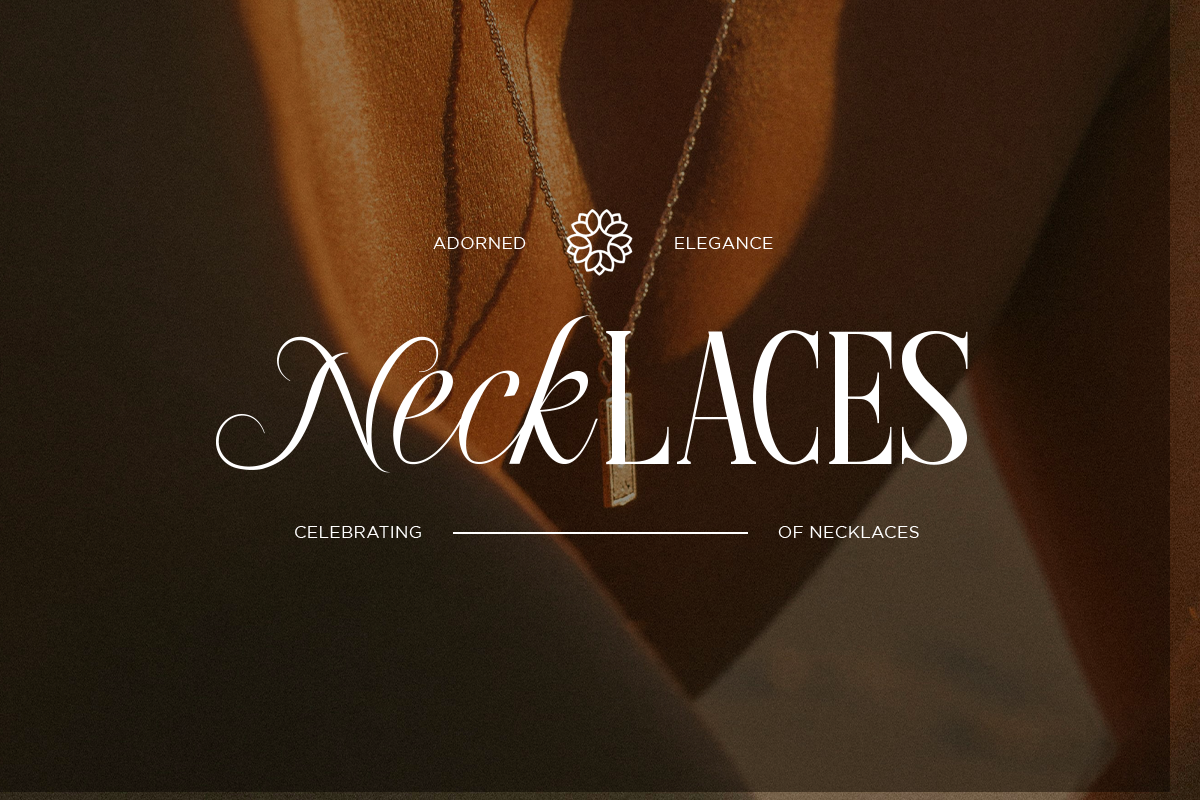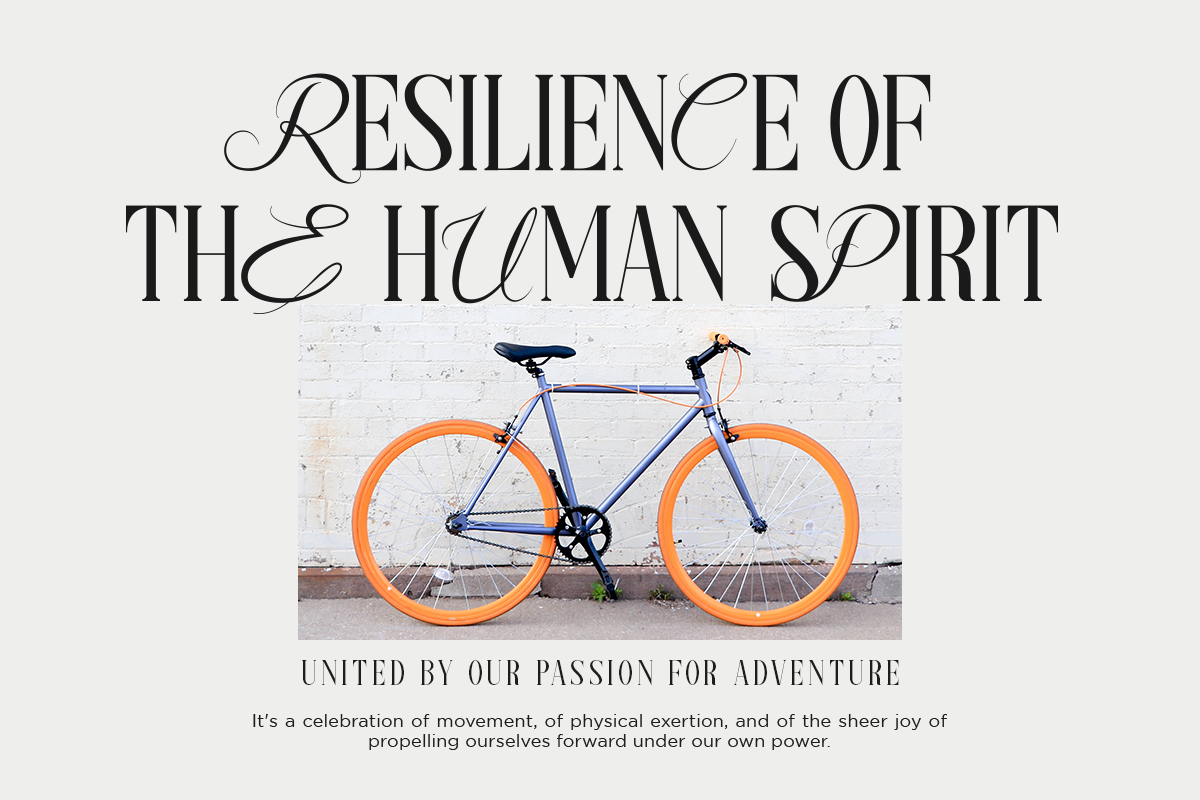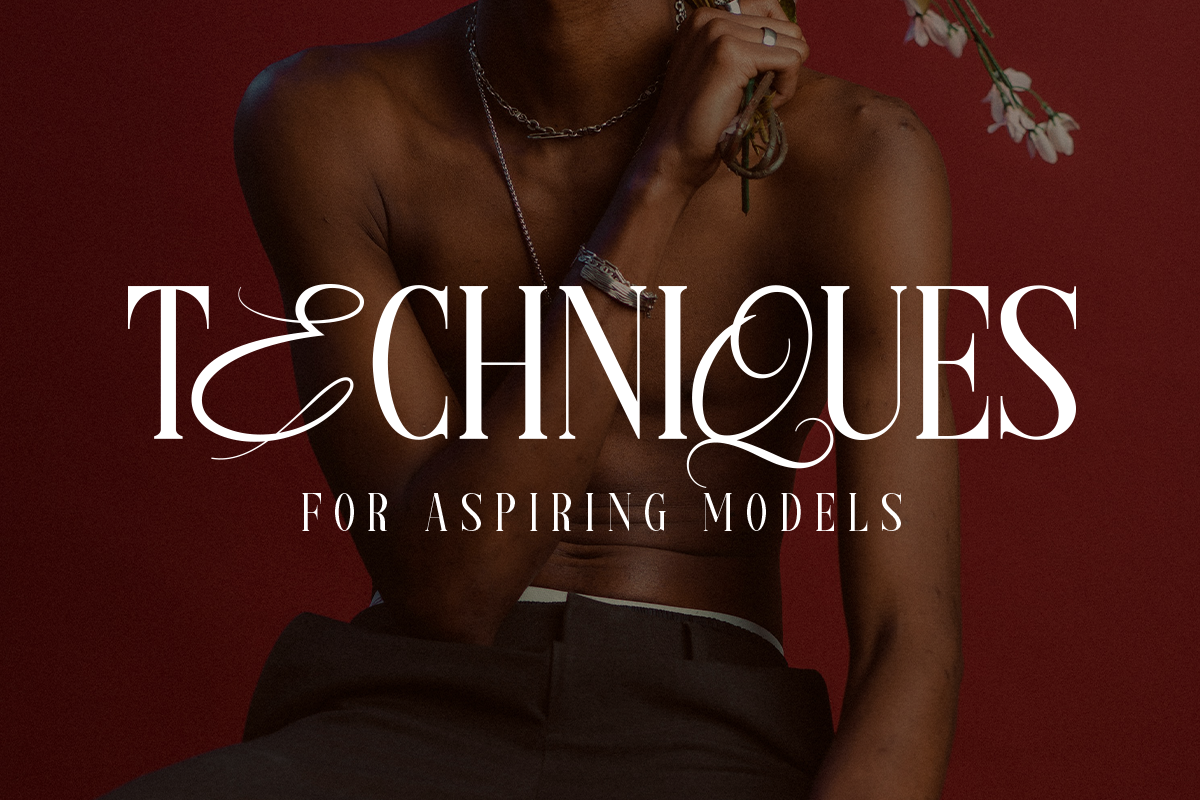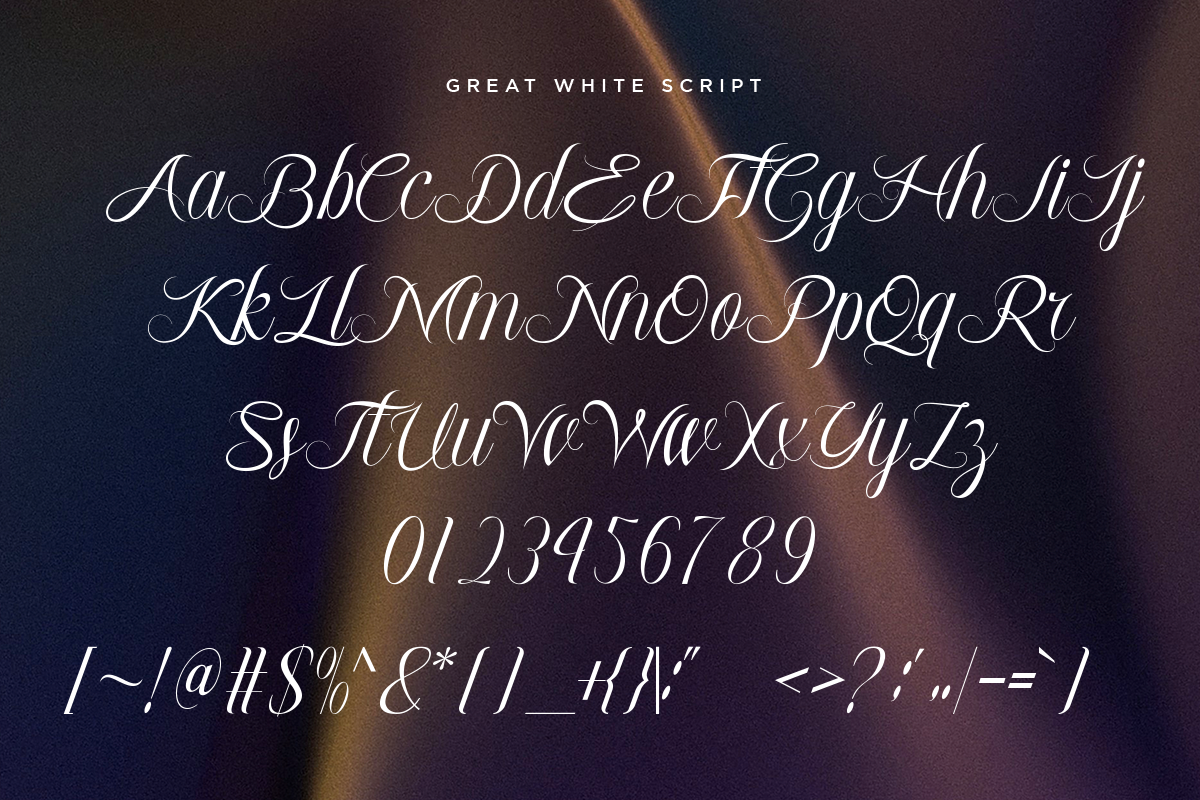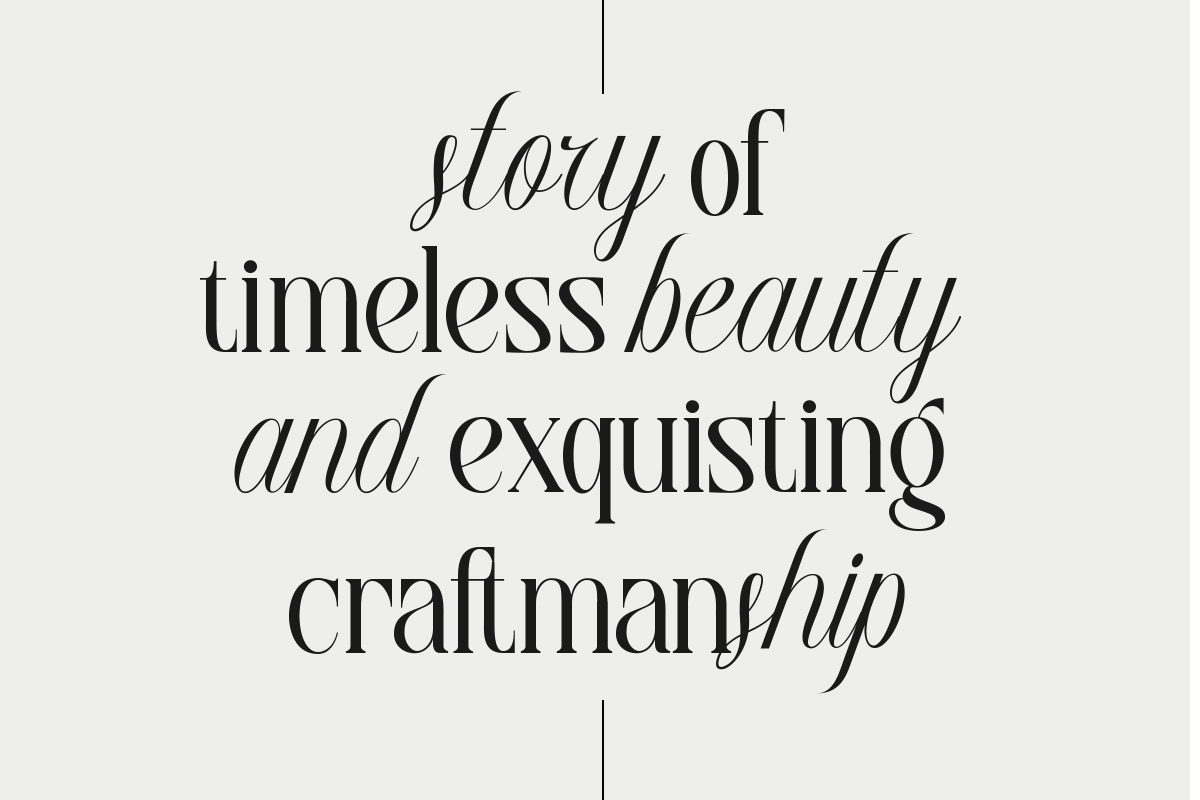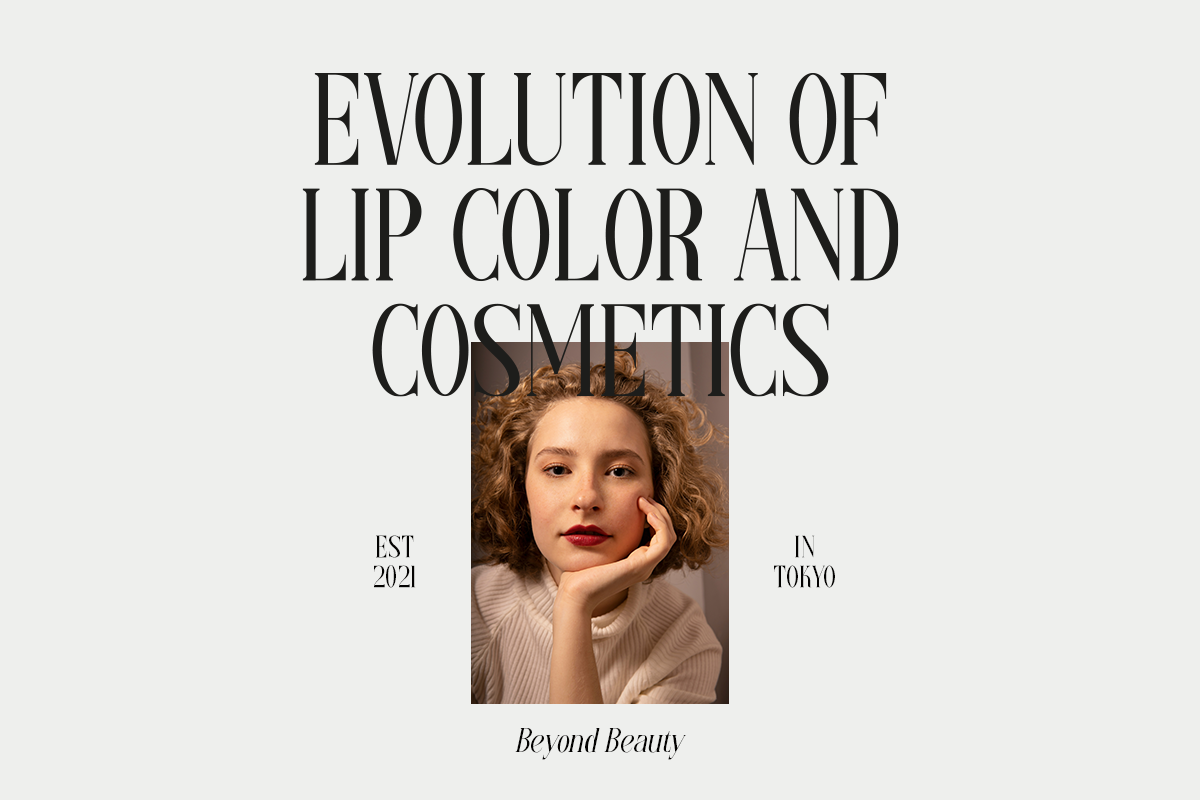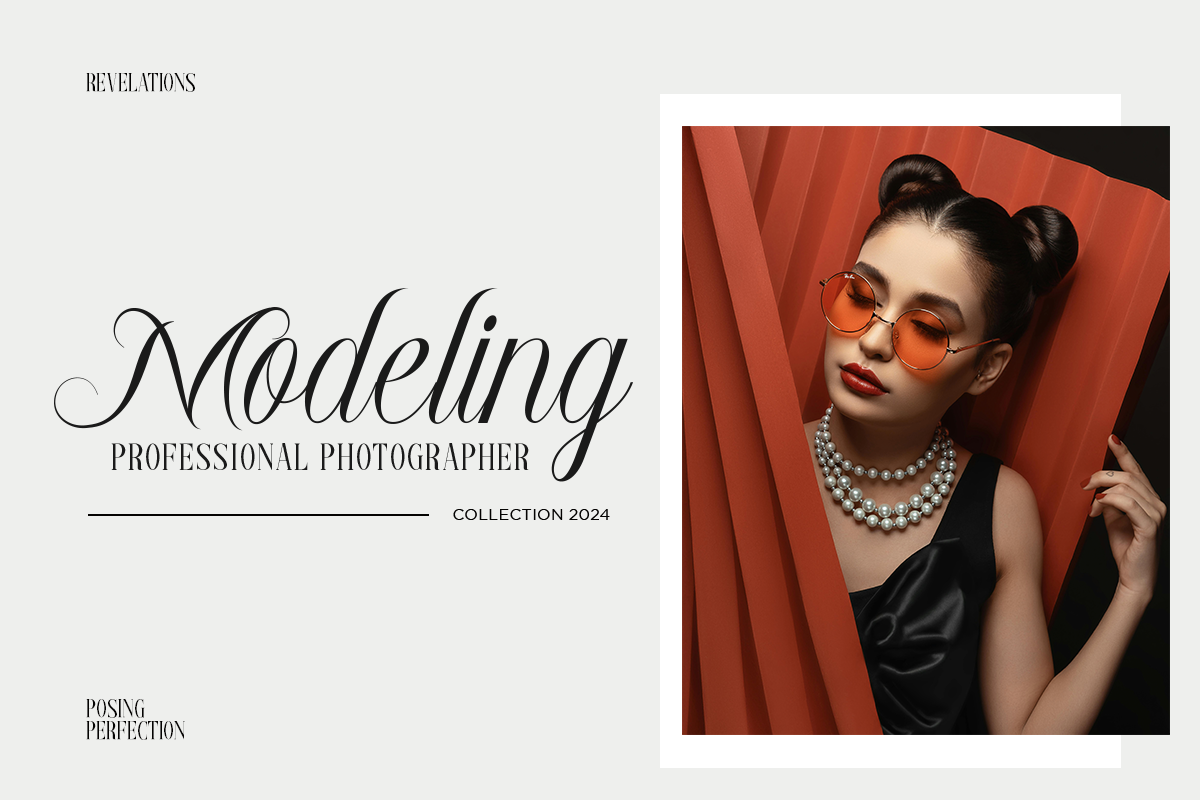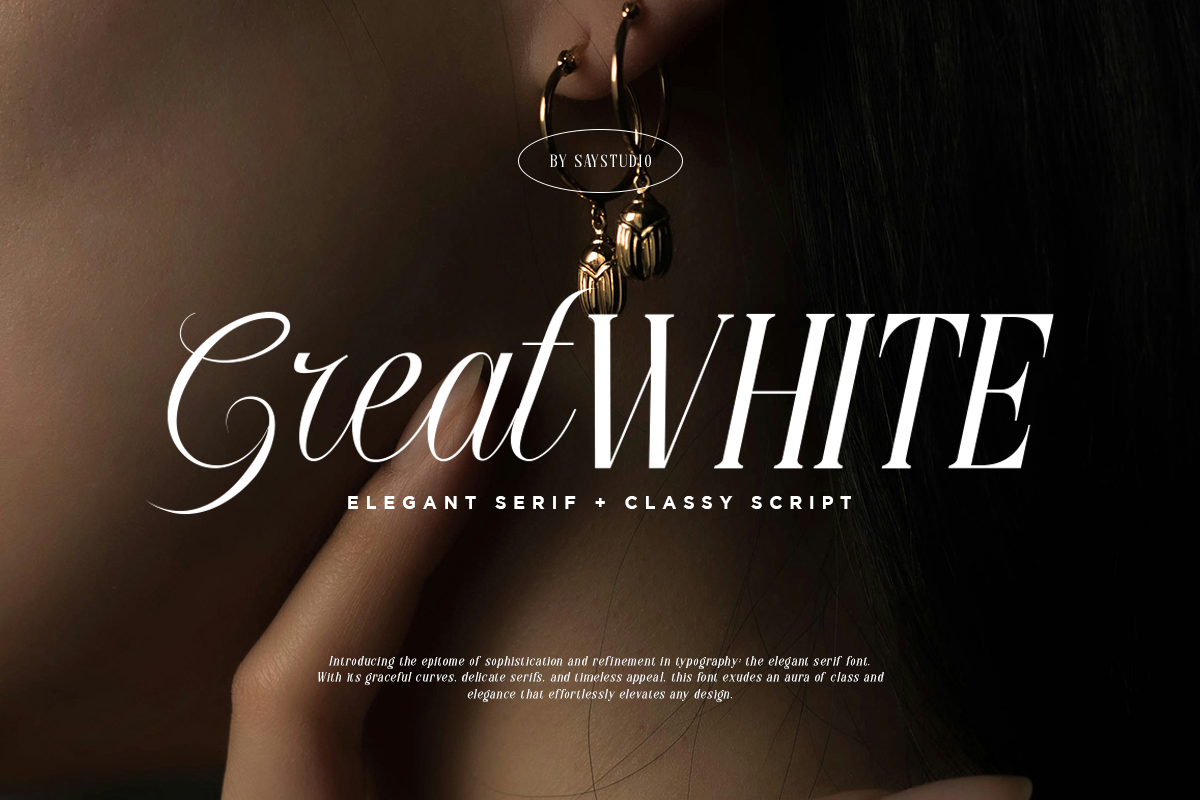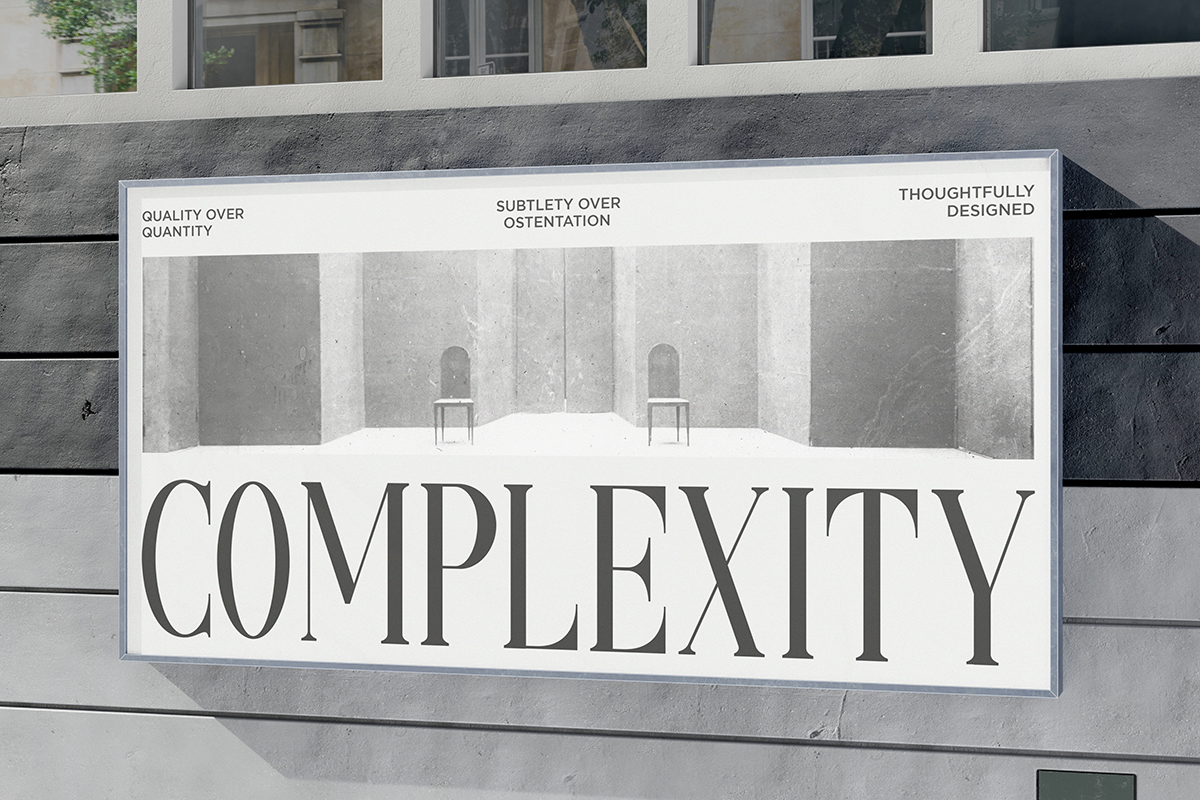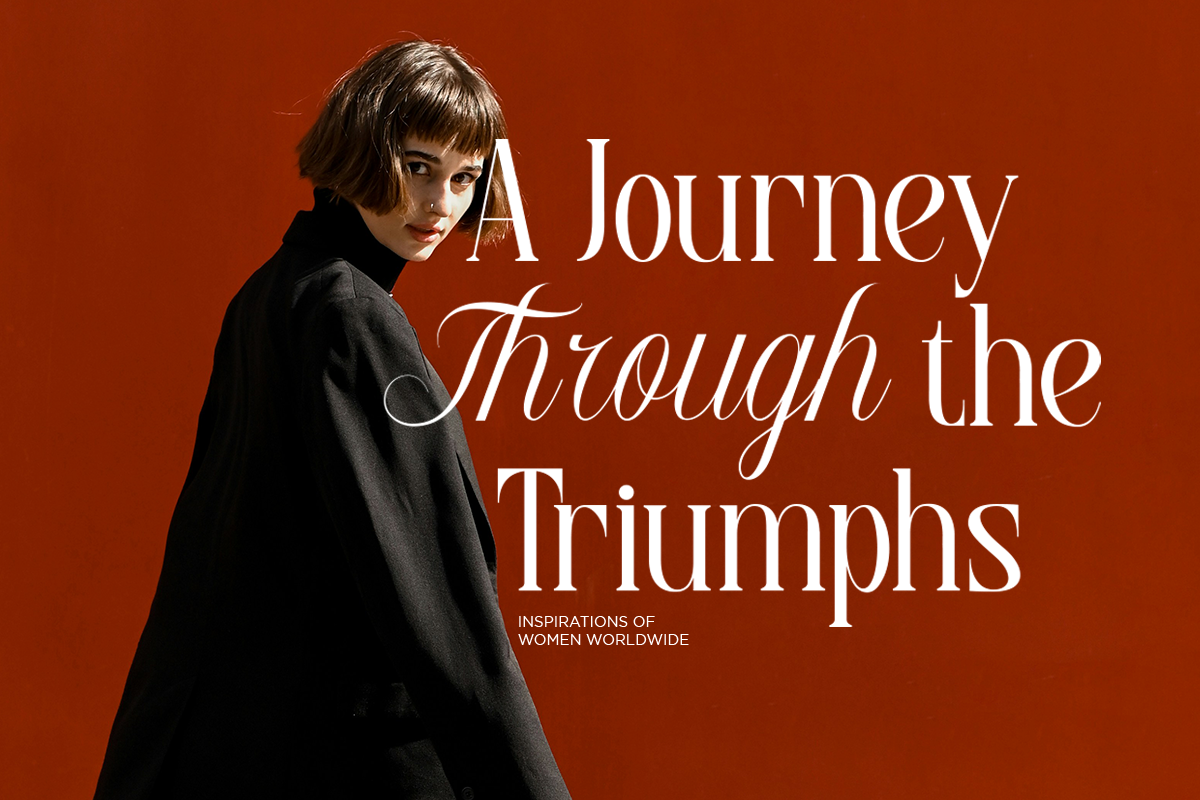
Great White - Font Duo
If you've got style and love all the Elegant and classy design, Great White is the best choice Add a touch of luxury and style to your projects too, with the Great White Font Duo . They can even be mixed together within the same word for a more eye-catching layout, giving you a versatile set of fonts which can be used & loved across a range of design projects. This elegant typeface font duo is timeless and can not be missed in your font collection. It is well suited for wedding invitations, save the date cards, stylish logos, and feminine branding.